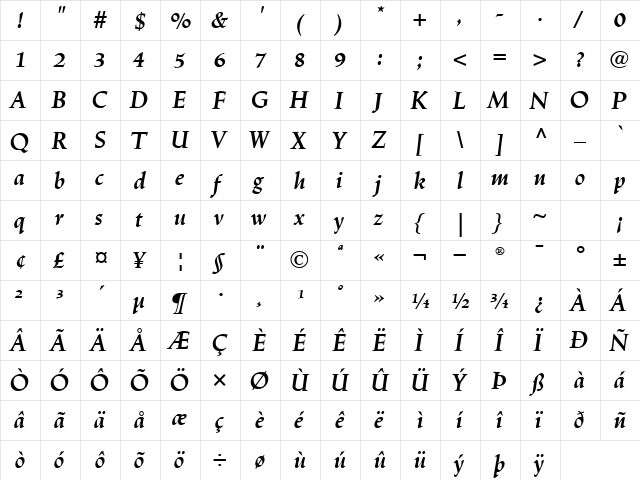
LinotypeTrajanus BoldItalic
Design Context for LinotypeTrajanus Typeface
LinotypeTrajanus offers clean, dependable letterforms without strong stylistic allegiance, making it a practical choice for designers who need flexibility. The dynamic lean of this cut emphasises speed and emphasis in any layout. The heavy weight commands attention and anchors typographic hierarchies.
Pro Tip: Try LinotypeTrajanus for annotation and caption copy alongside an upright companion — the contrast in angle creates a dynamic but ordered typographic system.